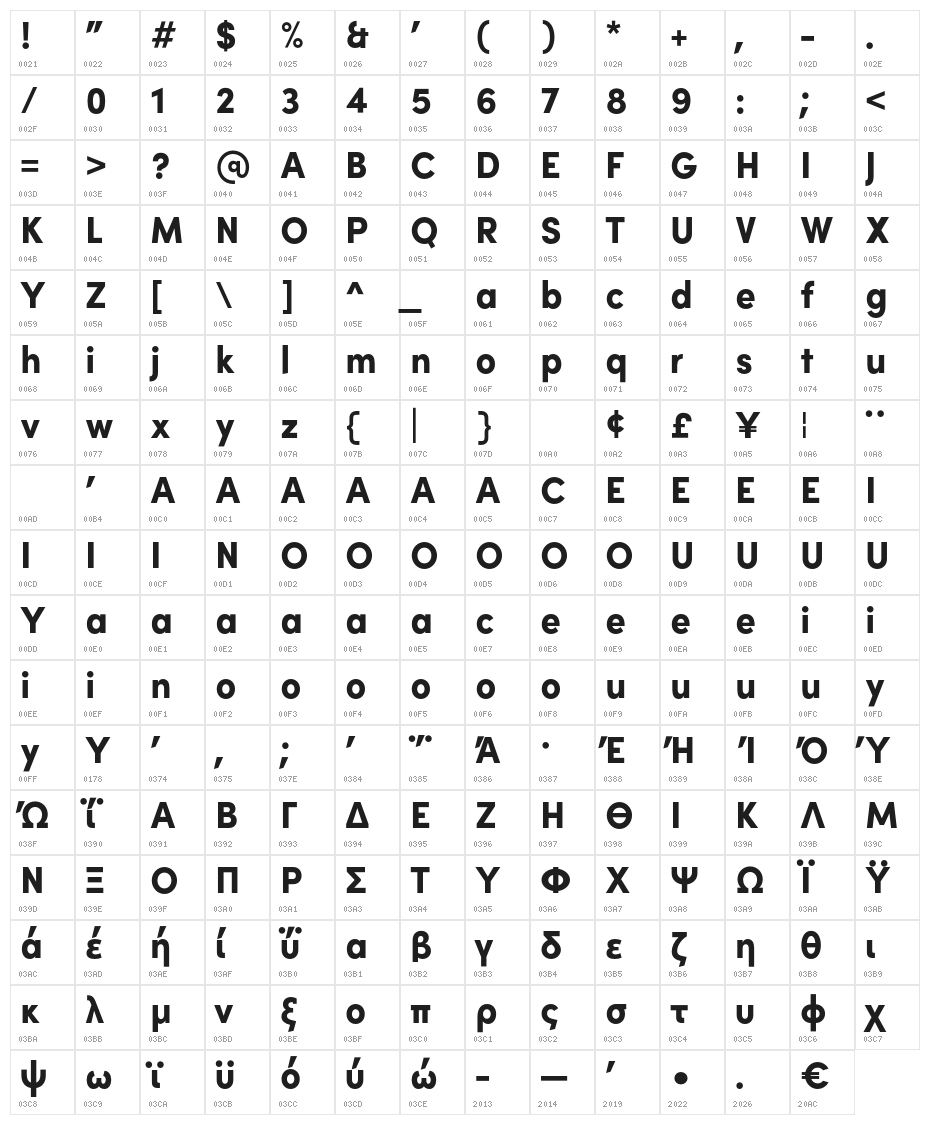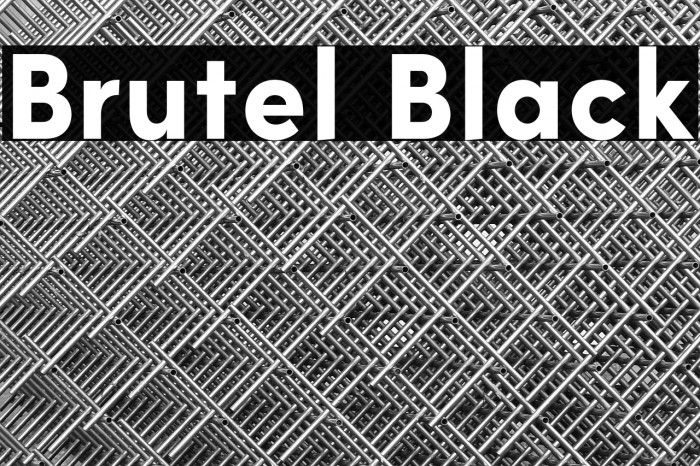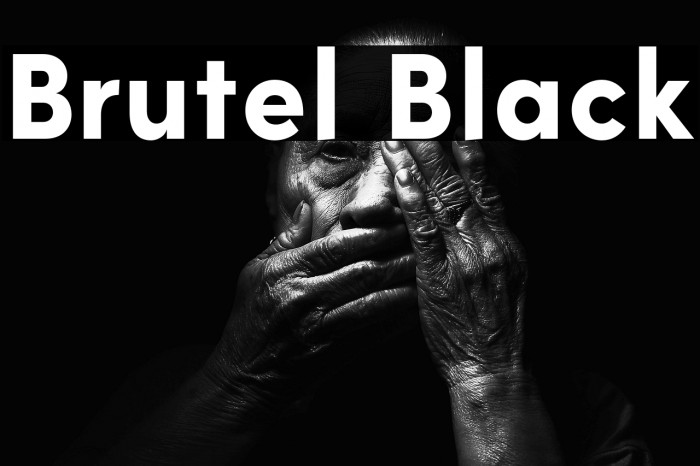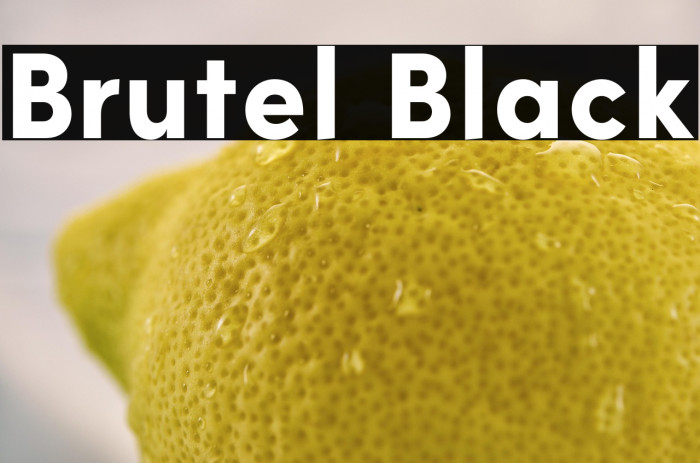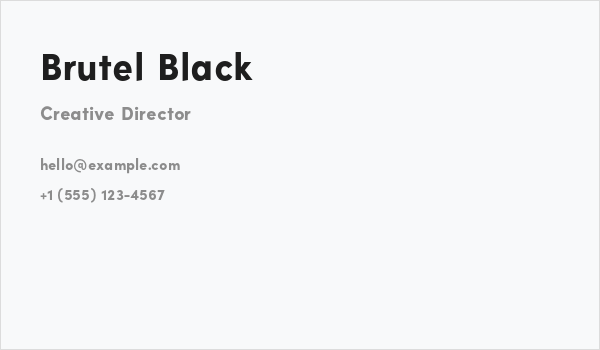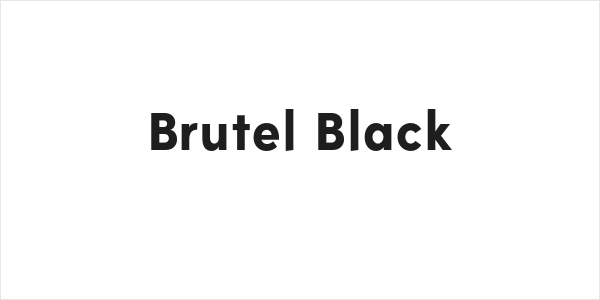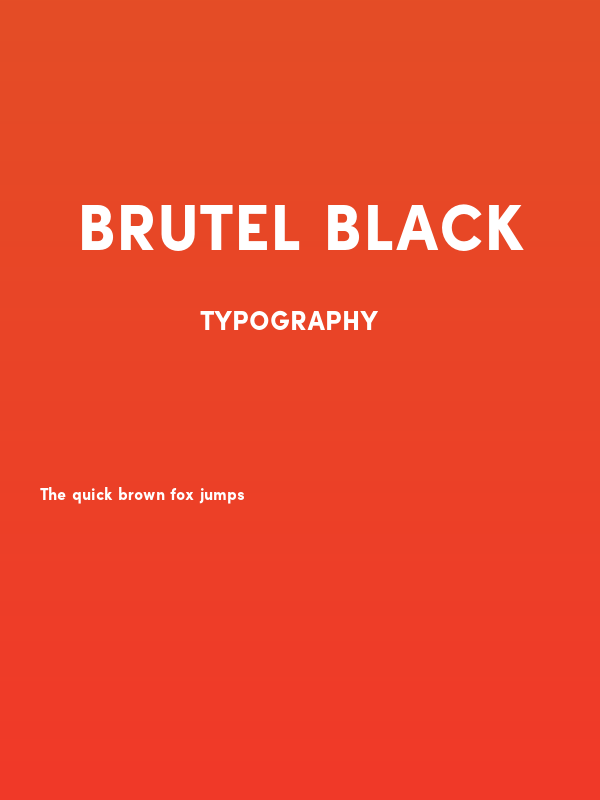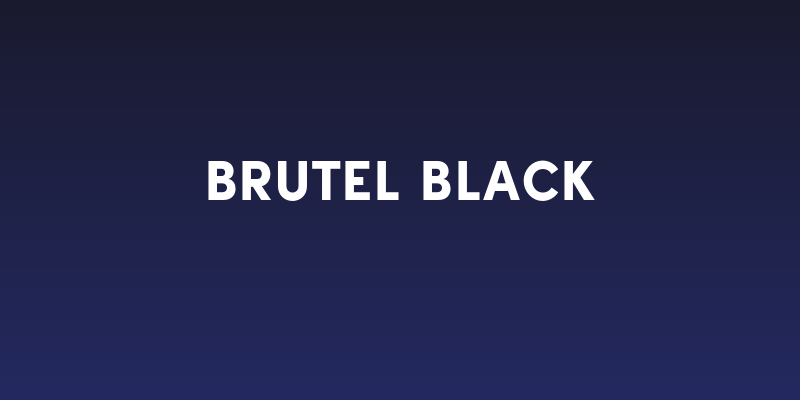
Brutel Black Font
Brutel Black Description
This font features a bold and robust design with clean, geometric lines that convey a sense of strength and modernity. The uppercase and lowercase letters are well-balanced, with consistent stroke widths that create a harmonious appearance. The numerals are clear and easily readable, while the special characters maintain the same bold aesthetic, ensuring uniformity across all elements. The overall style is contemporary and versatile, making it suitable for a wide range of applications. Its simplicity and clarity make it an excellent choice for impactful headlines and branding projects.
| Proposed Projects | Ideal for branding, advertising, headlines, and modern web design. |